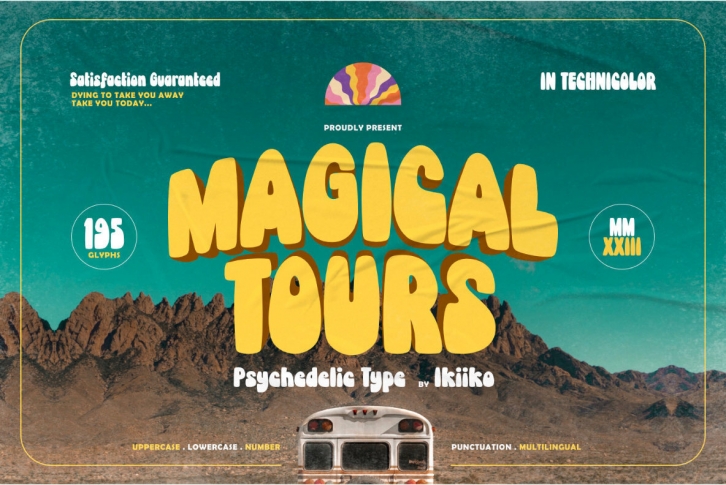
Magical Tours is a stunning typeface that embodies the retro charm and allure of psychedelic design. With its unique bottom thickness, it takes you on a timeless journey, evoking the spirit of the past.
Inspired by the writing styles of the 60s, this font blends vintage elements with psychedelic influences, resulting in a distinct personality. Perfect for vintage themes, retro posters, fashion ads, book covers, packaging, food and beverages, quotes, or stylish text overlays on images.
• Uppercase and lowercase letters
• Numbers and punctuation
• Multilingual support
Unleash the magic of Magical Tours and transport your designs to a psychedelic realm.